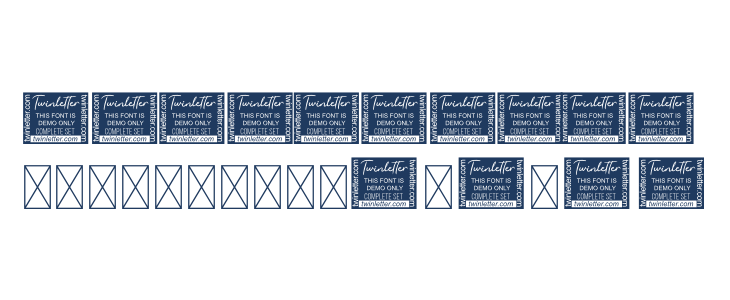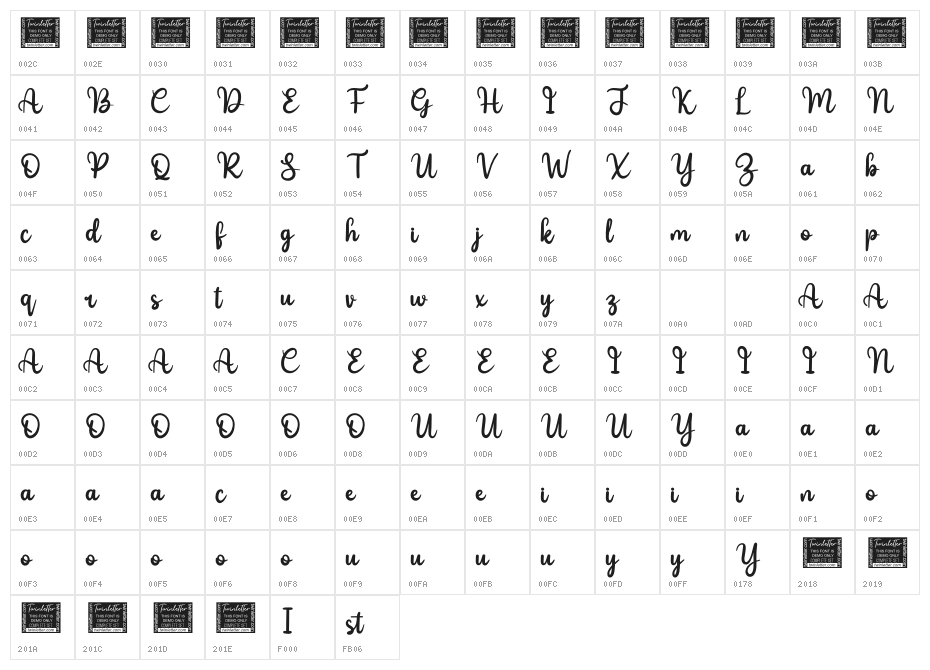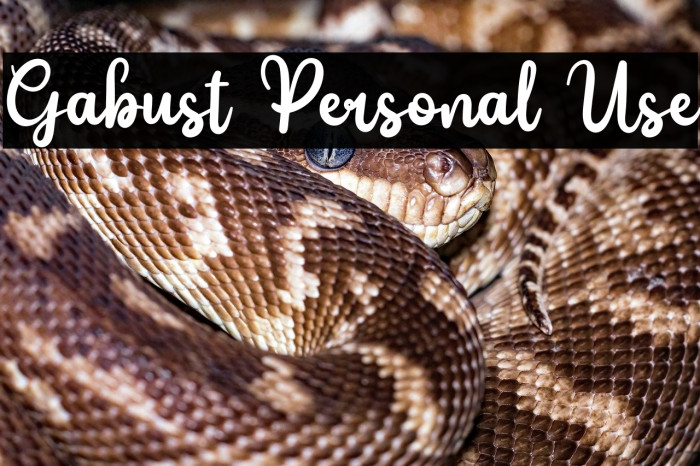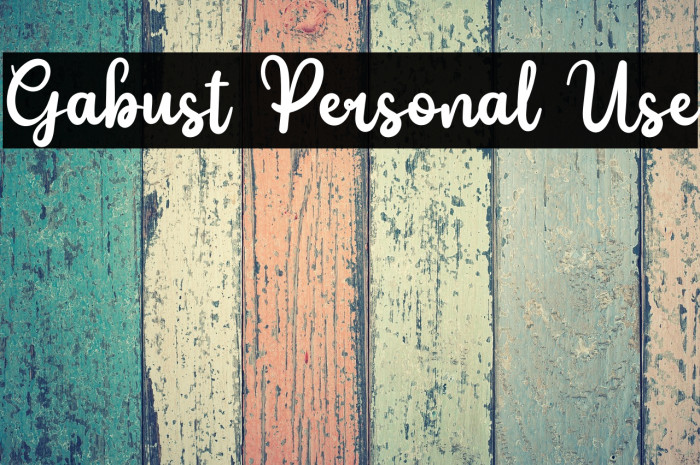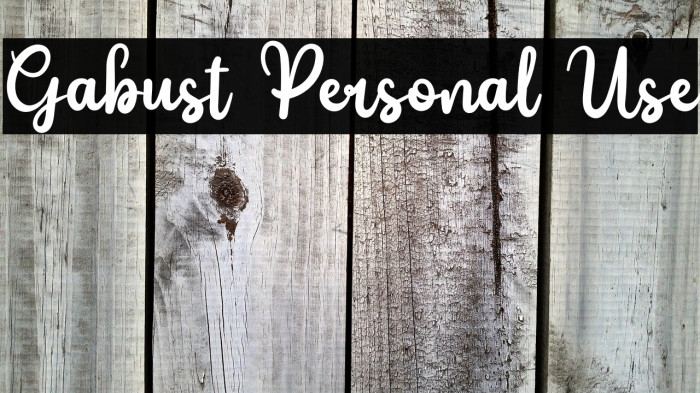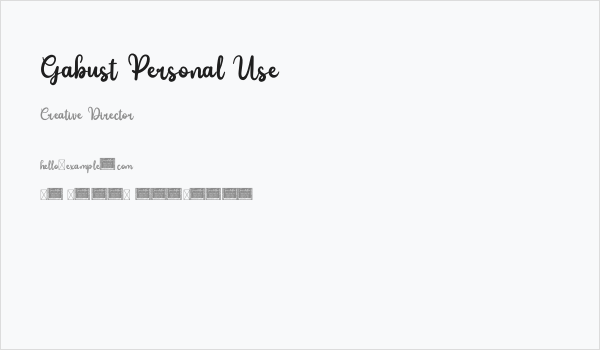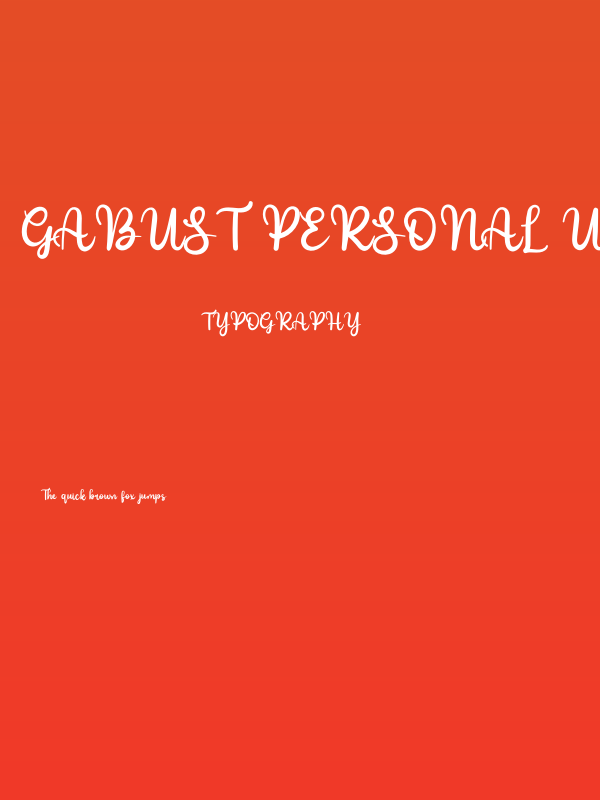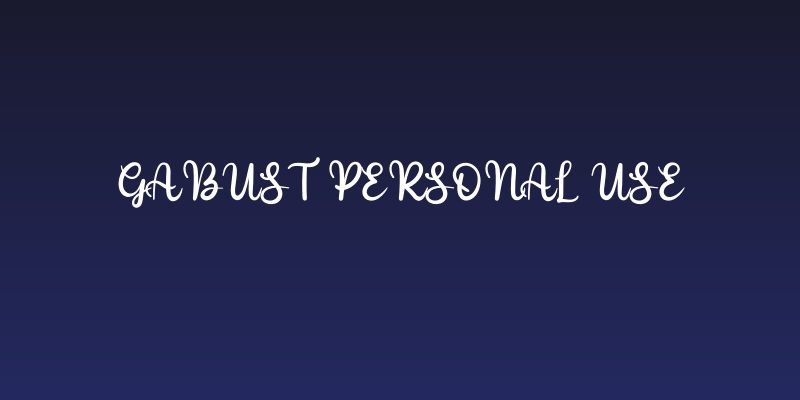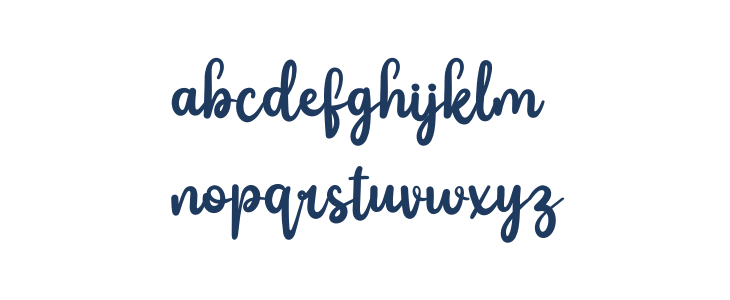
Gabust Personal Use Font
This font features a playful and elegant script style with a handwritten appearance. The letters are connected, creating a flowing and cohesive look. The uppercase letters are slightly more ornate, with loops and curves that add a touch of sophistication. The lowercase letters maintain a consistent style, with rounded edges and smooth transitions between strokes. The numbers and special characters follow the same aesthetic, ensuring a uniform appearance across all text. This font is ideal for projects that require a personal touch, such as invitations, greeting cards, or branding materials.
| Use Case | Logos, Headlines, Invitations |
| Proposed Projects | Ideal for invitations, greeting cards, branding, and personal projects. |